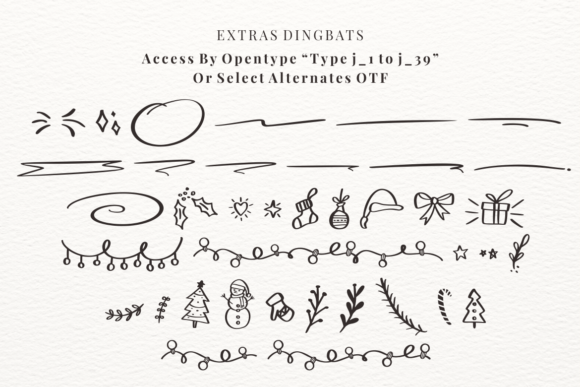
Wonder Santani Font
Wonder Santani is a stylish, modern, and elegant handwritten script font, suitable for a wide spectrum of applications, from greeting cards to headlines and many more. This font will guarantee a romantic touch to each of your creations!
This font is PUA encoded which means you can access all of the glyphs and swashes with ease.